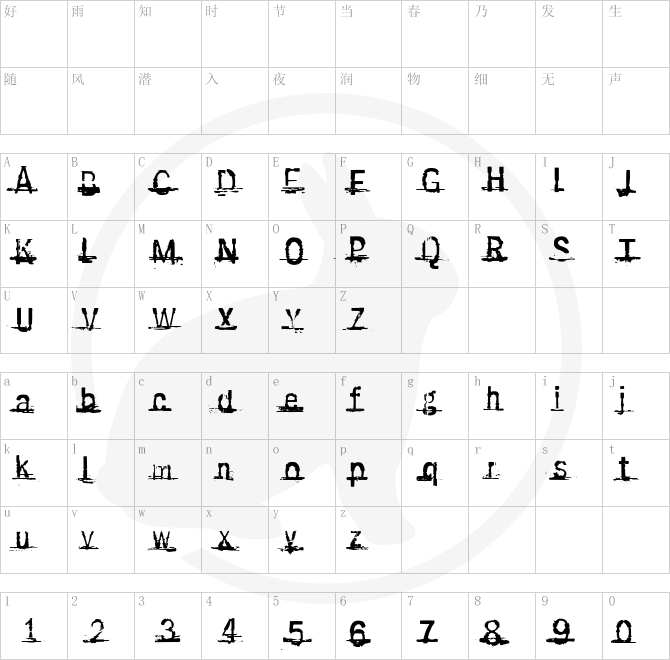
- Font Name:Sabotage
Sabotage.ttf is a very beautiful artistic font, Sabotage.ttf is widely used in the design and printing of various books and pictures,Sabotage.ttf has a strong visual impact,Sabotage.ttf is a commonly used font in newspapers, magazines and books, and is used in posters, e-commerce Poster design, store design, logo design, font design and other fields.Sabotage.